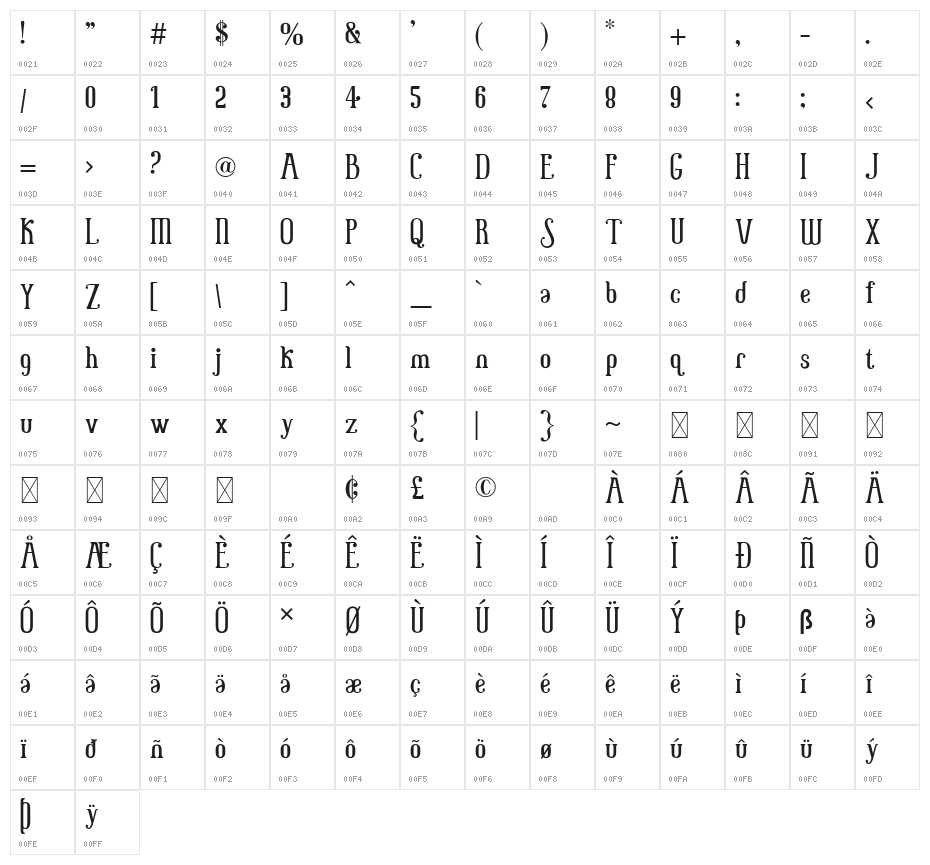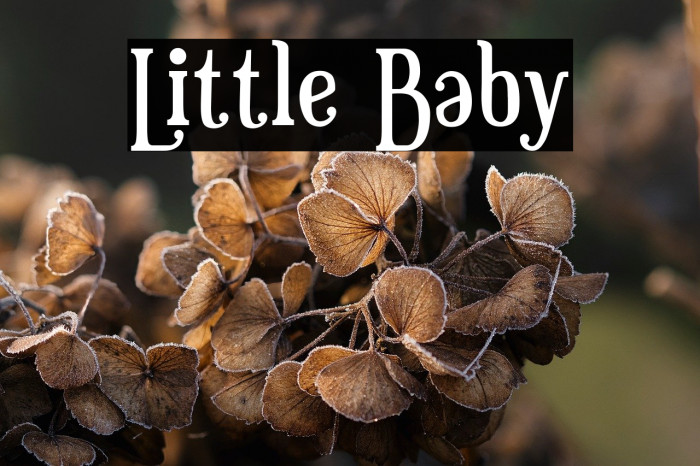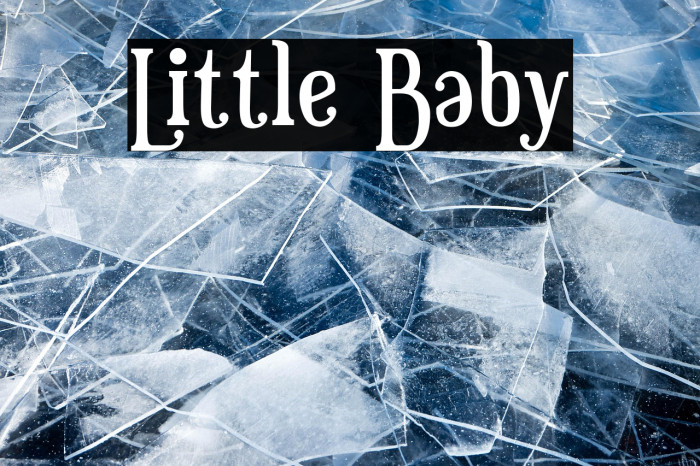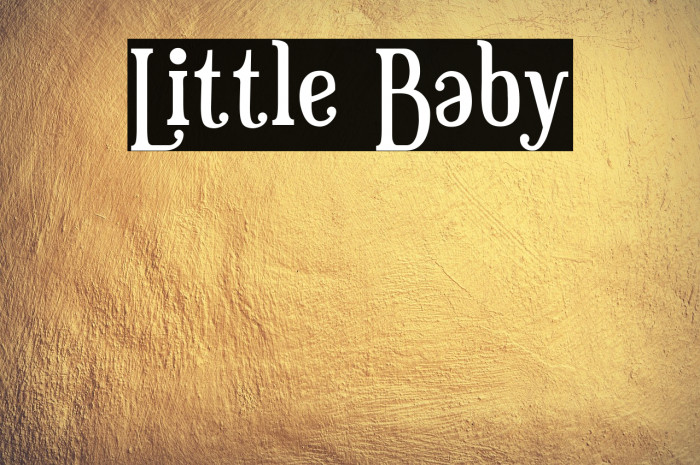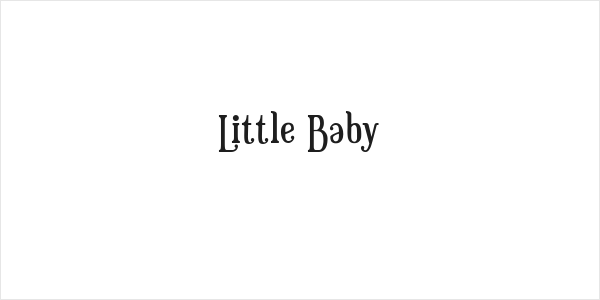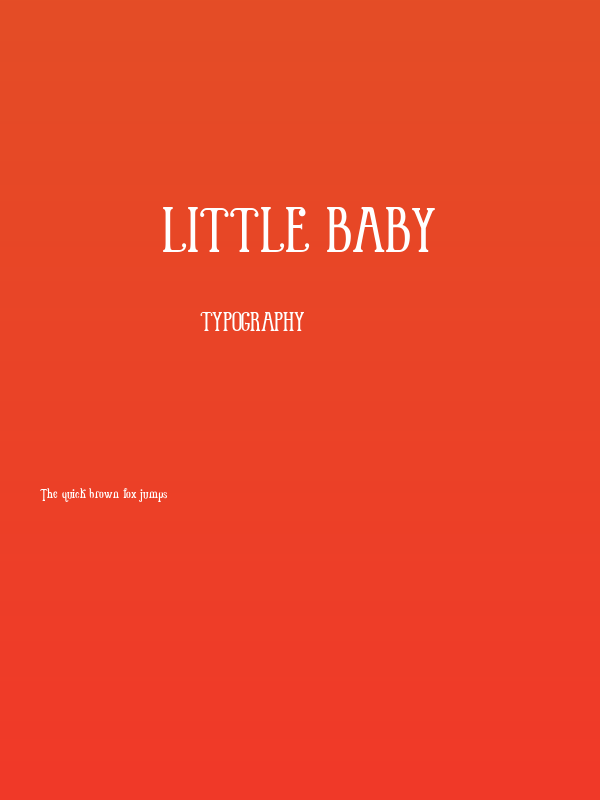
Little Baby Font
Little Baby Description
This font features a playful and whimsical design with a touch of elegance. The characters are tall and slender, with subtle curves and unique serifs that add a distinctive flair. The uppercase letters are particularly elongated, giving a sense of height and sophistication. The lowercase letters maintain a consistent style, with rounded edges and a slightly condensed form. Numbers are clear and legible, matching the overall aesthetic. Special characters are creatively designed, integrating seamlessly with the rest of the font. This font is perfect for projects that require a blend of fun and formality.
| Overall Style | Playful, Elegant |
| Proposed Projects | Ideal for children's book covers, playful branding, invitations, and decorative posters. |